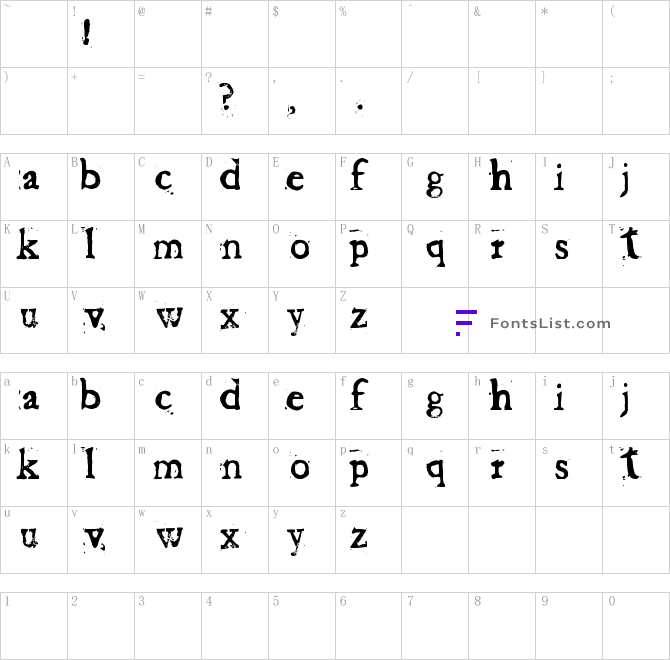
• Font Name:Baketvalley Old Face
Baketvalley-Old-Face-Regular.ttf is a very beautiful artistic font, Baketvalley-Old-Face-Regular.ttf is widely used in the design and printing of various books and pictures,Baketvalley-Old-Face-Regular.ttf has a strong visual impact,Baketvalley-Old-Face-Regular.ttf is a commonly used font in newspapers, magazines and books, and is used in posters, e-commerce Poster design, store design, logo design, font design and other fields.Baketvalley-Old-Face-Regular.